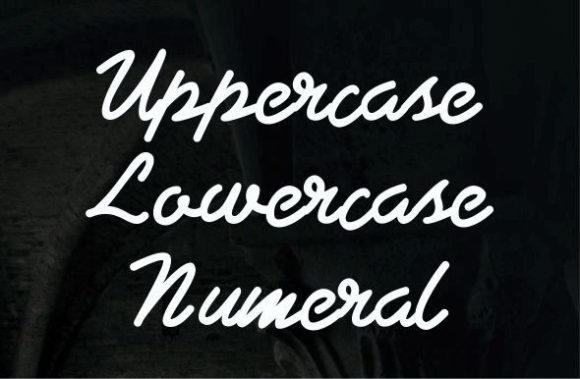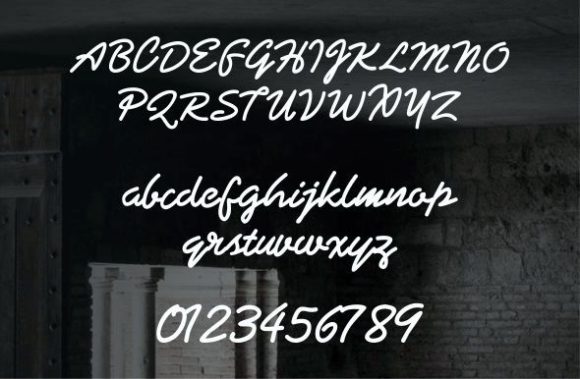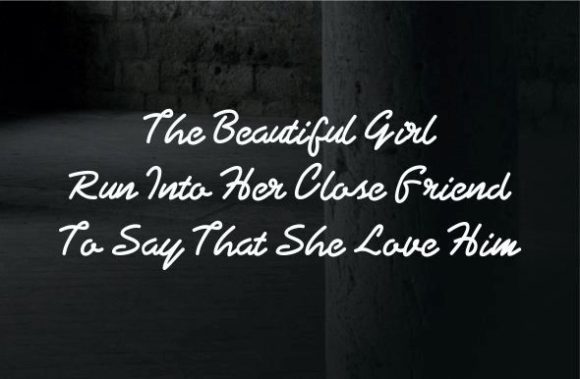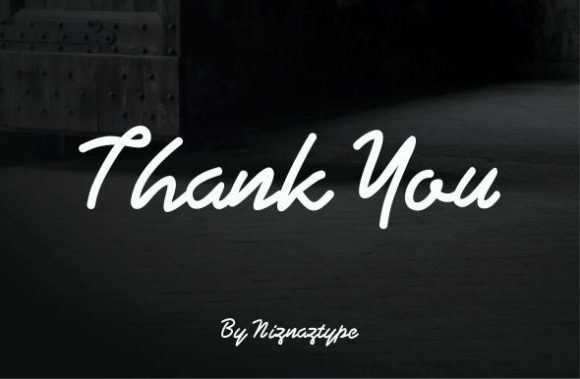
Introducing Aljameela Font: The Epitome of Elegance in Handwritten Typography
In the realm of typography, few fonts manage to strike a balance between elegance and versatility. Aljameela Font is one such exceptional typeface that embodies the perfect blend of sophistication and charm. Dubbed as a handwritten font that simplifies elegance into one truly outstanding design, Aljameela is making waves in the design community for its impeccable style and adaptability. Whether you’re crafting logos, branding materials, social media content, or engaging in DIY projects, Aljameela is poised to become your go-to font for all creative endeavors.
The Essence of Aljameela Font
Aljameela Font stands out with its unique handwritten style that exudes a sense of personal touch and warmth. Its elegant strokes and fluid connections make it instantly recognizable, setting it apart from more conventional typefaces. The beauty of Aljameela lies in its ability to convey a message of sophistication and refinement, making it an ideal choice for projects that demand a high level of aesthetic appeal.
One of the key advantages of Aljameela Font is its incredible versatility. This font is not limited to a specific use case; rather, it can be seamlessly integrated into a wide range of projects. Here are some of the areas where Aljameela truly shines:
- Logos and Branding: Create a lasting impression with a logo that embodies elegance and sophistication. Aljameela’s unique style ensures that your brand stands out in a crowded marketplace.
- Social Media Content: Elevate your social media presence with eye-catching posts, stories, and banners that reflect a refined aesthetic.
- DIY Projects: Add a personal touch to your crafty DIY projects, whether it’s handmade cards, party invitations, or personalized gifts.
Why Choose Aljameela Font?
With so many fonts available, what makes Aljameela a standout choice? Here are a few reasons why designers and crafters are gravitating towards Aljameela:
- Unique Style: Aljameela offers a distinctive look that is both modern and timeless, ensuring your projects have a unique flair.
- Ease of Use: Designed with user-friendliness in mind, Aljameela can be easily integrated into various design tools and software.
- High Readability: Despite its elegant nature, Aljameela maintains high readability, making it suitable for both headings and body text.
Tips for Using Aljameela Font Effectively
To make the most of Aljameela Font, consider the following tips:
- Pair with Complementary Fonts: For maximum impact, pair Aljameela with fonts that complement its style. A sans-serif font can provide a nice contrast for body text.
- Experiment with Colors: While Aljameela looks stunning in classic black and white, don’t be afraid to experiment with colors that match your brand’s palette or project theme.
- Adjust Letter Spacing: Fine-tune the letter spacing to ensure optimal readability and aesthetic appeal for your specific project.
Aljameela Font is a game-changer for designers and crafters looking to infuse their projects with a touch of elegance and sophistication. Its unique handwritten style, versatility, and ease of use make it an invaluable asset in any creative toolkit. Whether you’re aiming to create stunning logos, elevate your social media content, or add a personal touch to DIY projects, Aljameela is the perfect companion for your creative journey. Embrace the elegance of Aljameela Font and witness how it transforms your designs into truly outstanding pieces of art.